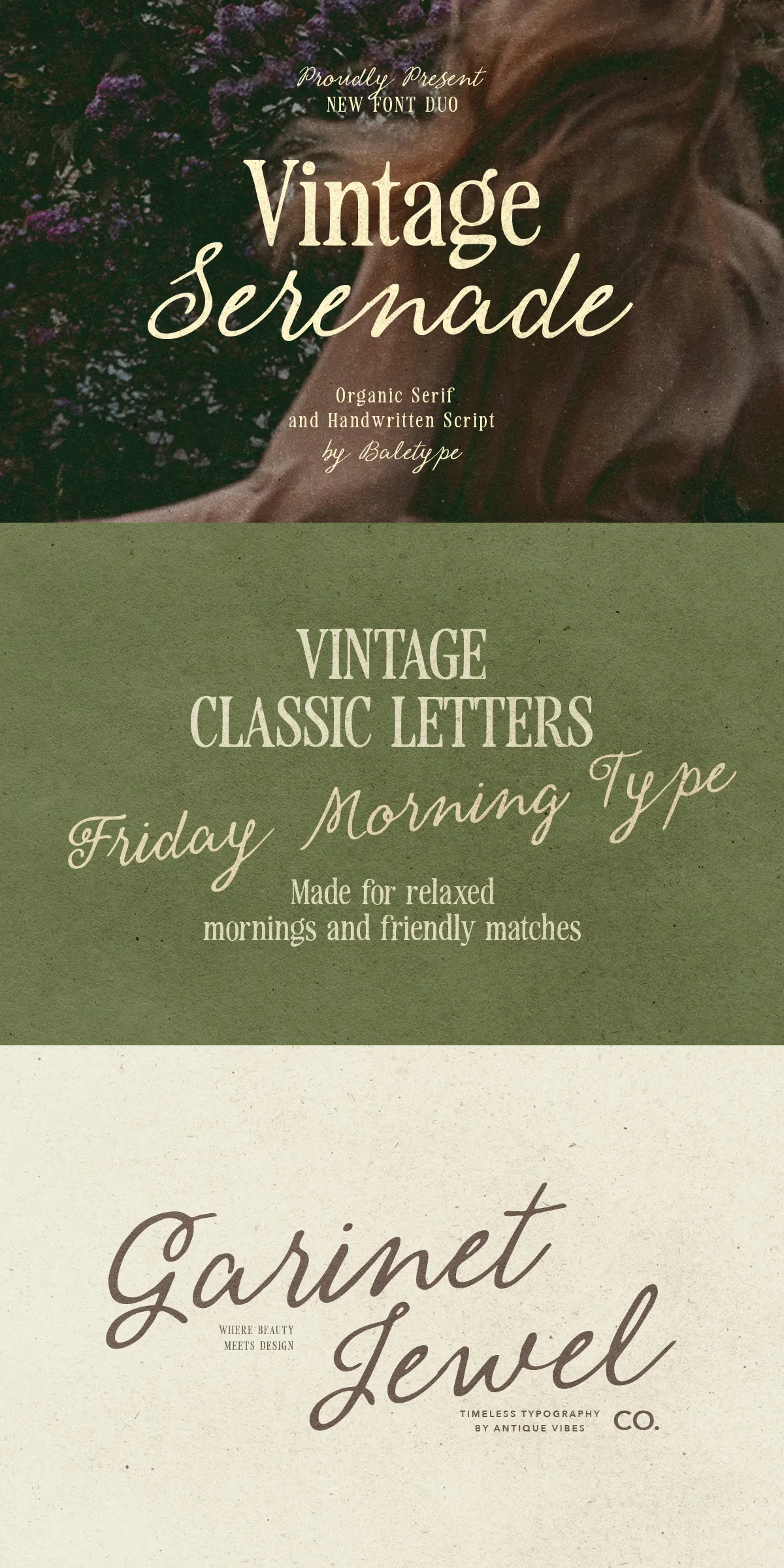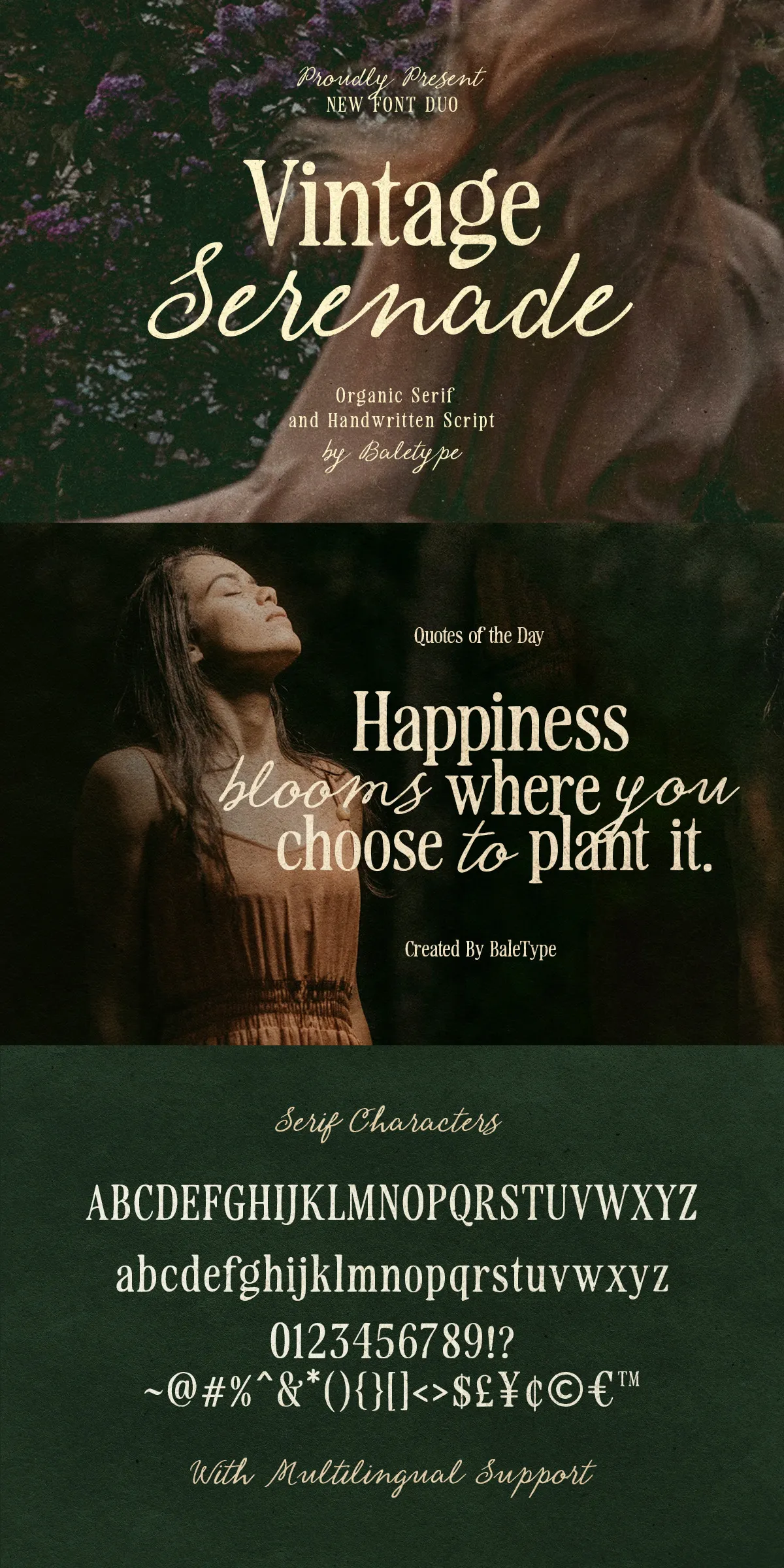
Vintage Serenade pairs a hand-lettered serif with a flowing handwritten script to create a versatile, organic type system that brings genuine warmth and personality to every design. The serif offers rooted, crafted letterforms that read confidently in display and logotype use, while the script adds fluid motion and natural rhythm to headlines, invitations, and accent copy. Together they deliver a cohesive voice ideal for wedding stationery, boutique branding, packaging, quote graphics, and any project that benefits from an authentic hand-crafted aesthetic.
Distinctive Design Voice That Feels Naturally Handcrafted
Hand-Lettered Serif That Communicates Authenticity And Purpose
The serif in Vintage Serenade features subtly irregular terminals and humanized stroke contrast that evoke artisanal lettering without sacrificing legibility. Each character reads with personality at display sizes, allowing headlines and logotypes to carry a made-by-hand feeling while maintaining crisp reproduction in print and digital formats. The serif anchors your visual identity with a grounded, vintage-informed presence.
Handwritten Script That Moves With Fluid, Natural Motion
The script companion emphasizes connectivity and flow. Built with numerous ligatures and contextual alternates, it automates smooth joins and delivers convincing, handwritten rhythm. Use the script for signatures, invitation lines, accent phrases, and social media quotes where warmth and spontaneity matter. The script adapts to a range of moods — from playful and intimate to elegant and romantic — depending on spacing and size.
Extensive OpenType Features For Rich Typography Control
Vintage Serenade ships with robust OpenType features: discretionary ligatures, standard ligatures, stylistic alternates, contextual alternates, and multilingual diacritics. These features enable automated, natural-looking joins in the script and provide stylistic variety for the serif. Designers can quickly craft believable hand-lettered compositions without manual glyph swapping.
Practical Applications And Pairing Recommendations
Perfect Use Cases For An Organic, Romantic Tone
- Wedding invitations, save-the-dates, and event collateral that need a handcrafted, romantic voice
- Branding and logotype systems for boutiques, artisan goods, florists, cafés, and lifestyle labels
- Packaging where natural appeal and shelf personality increase perceived value
- Social graphics, quotes, and hero headings that benefit from fluid script accents
Pairing And Hierarchy Strategies For Stronger Layouts
Pair Vintage Serenade with a simple sans-serif for long-form copy to maintain readability while preserving the duo’s handcrafted charm. Use the serif as the primary display or logotype face and reserve the script for accents, signatures, and decorative lines. Adjust tracking and optical sizes to keep the script legible at small scales and to preserve the serif’s texture in print.